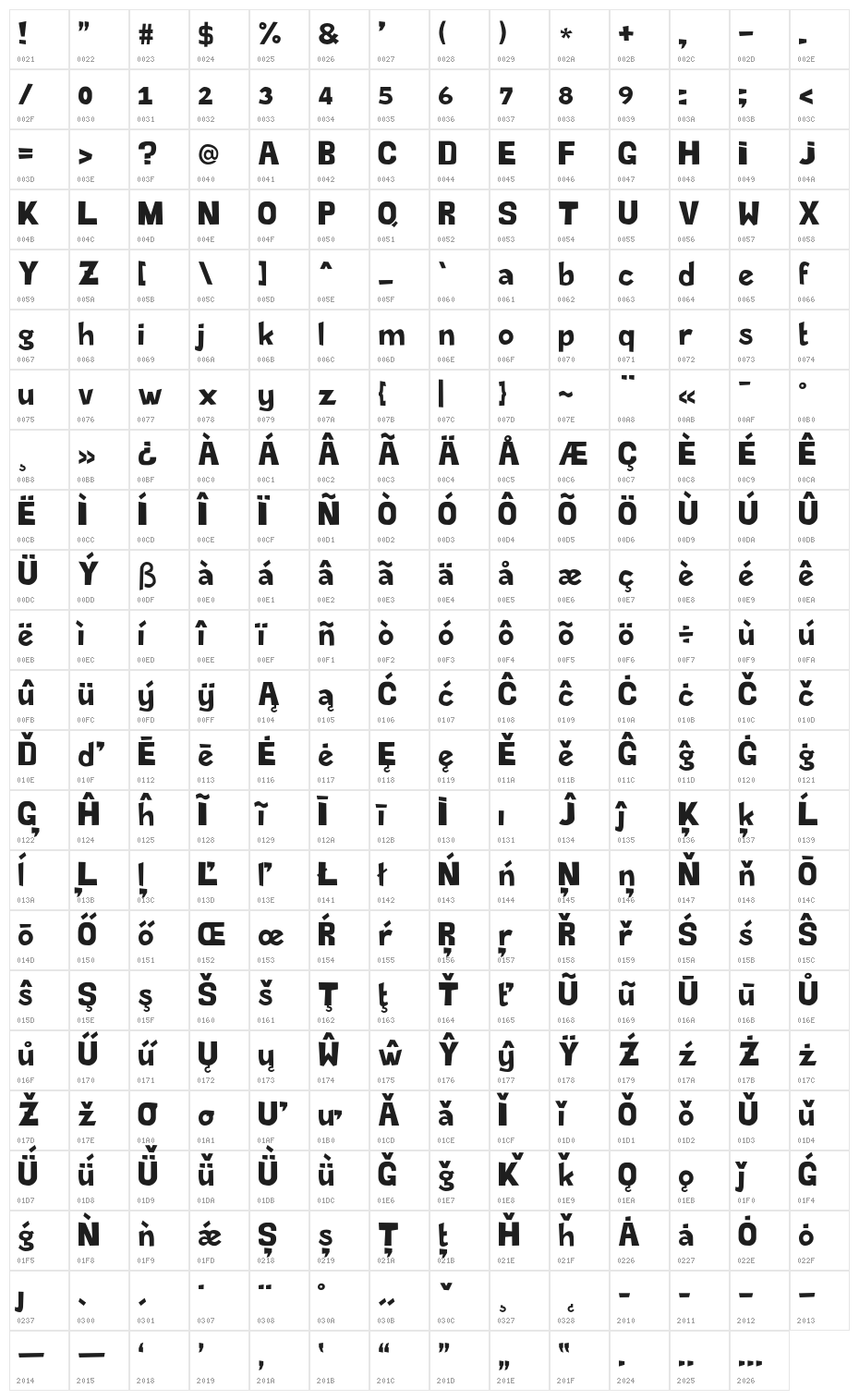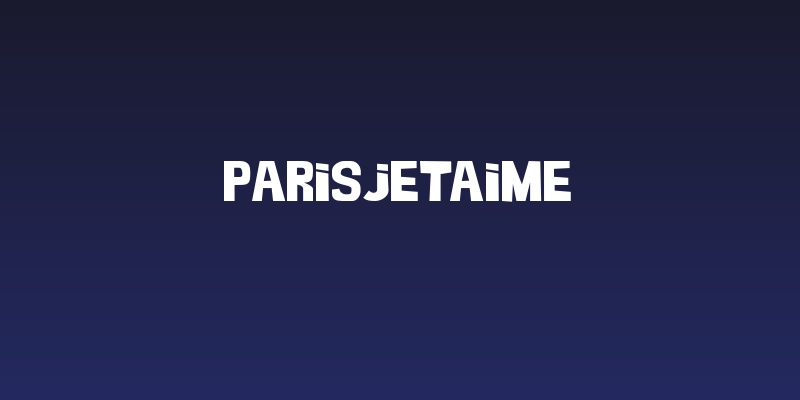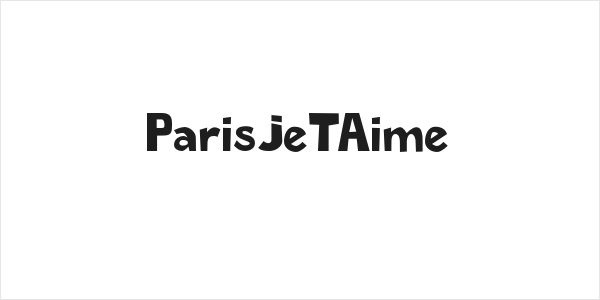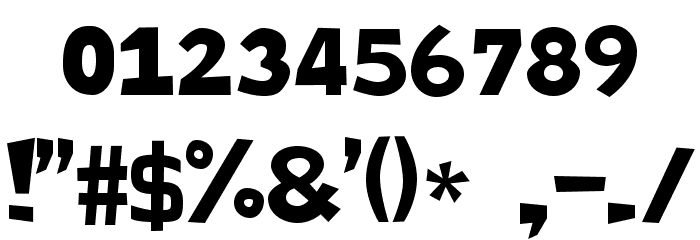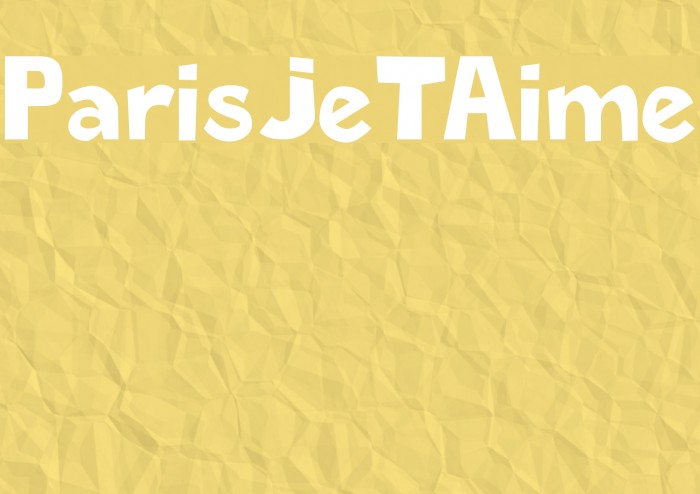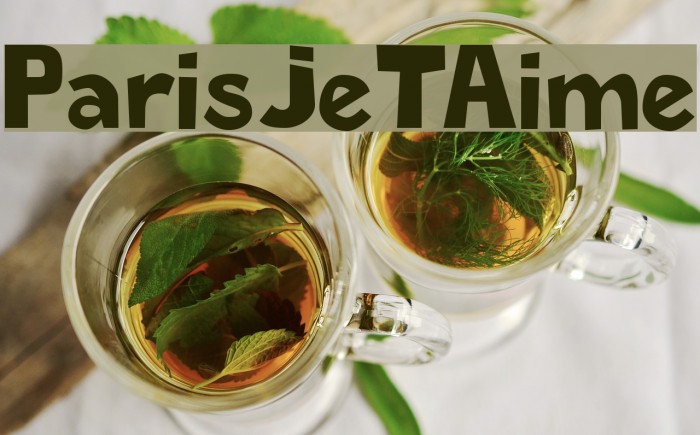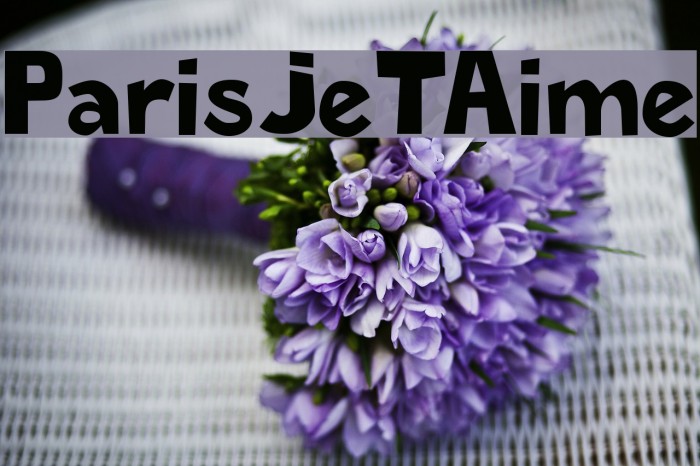
ParisJeTAime Font
ParisJeTAime Description
This font features a bold and playful style with a strong presence. The uppercase letters are blocky and slightly irregular, giving a sense of movement and energy. The lowercase letters maintain a similar playful character, with rounded edges and a slightly whimsical appearance. The numbers are consistent with the overall style, bold and easy to read. Special characters are designed to match the boldness and playfulness of the alphabet. This font is ideal for projects that require a fun and engaging look, such as children's books, posters, or branding for creative industries.
| Overall Style | Playful, Energetic |
| Proposed Projects | Children's books, posters, creative branding, playful advertisements. |